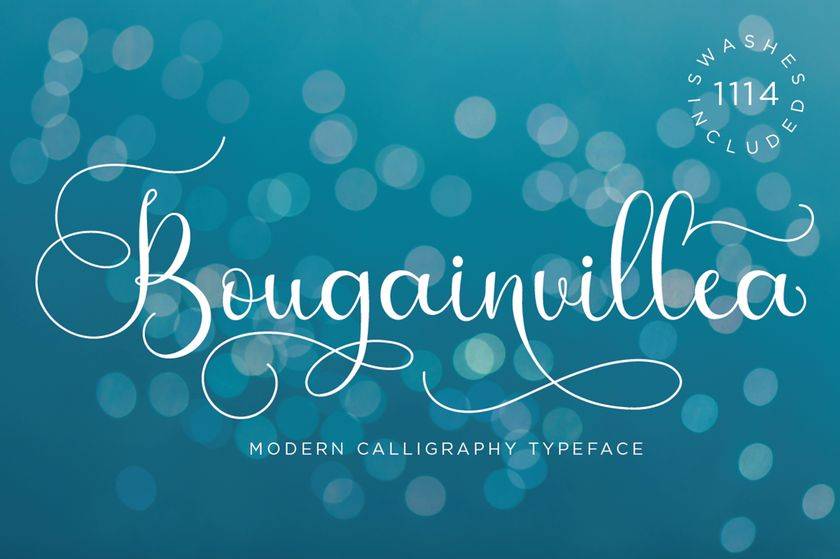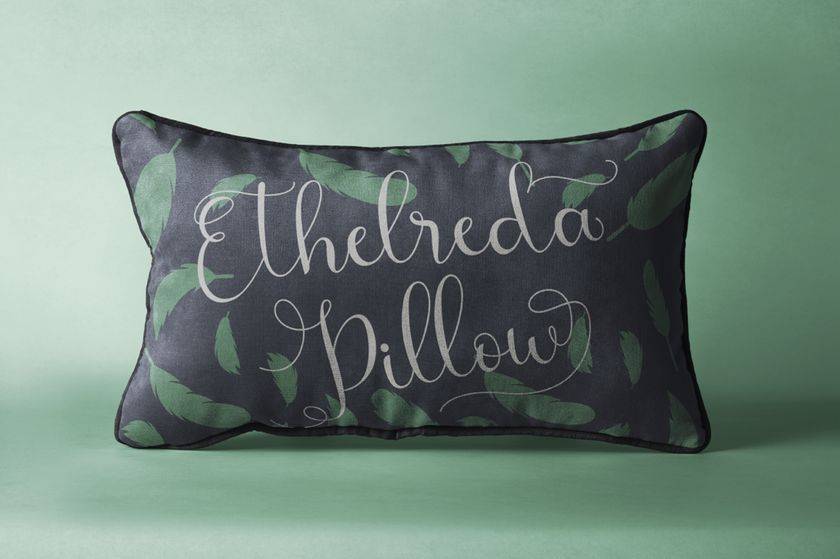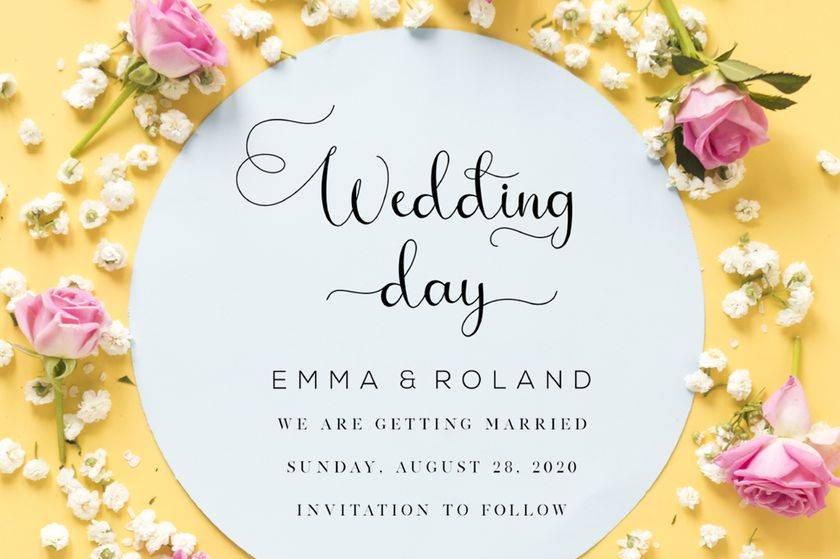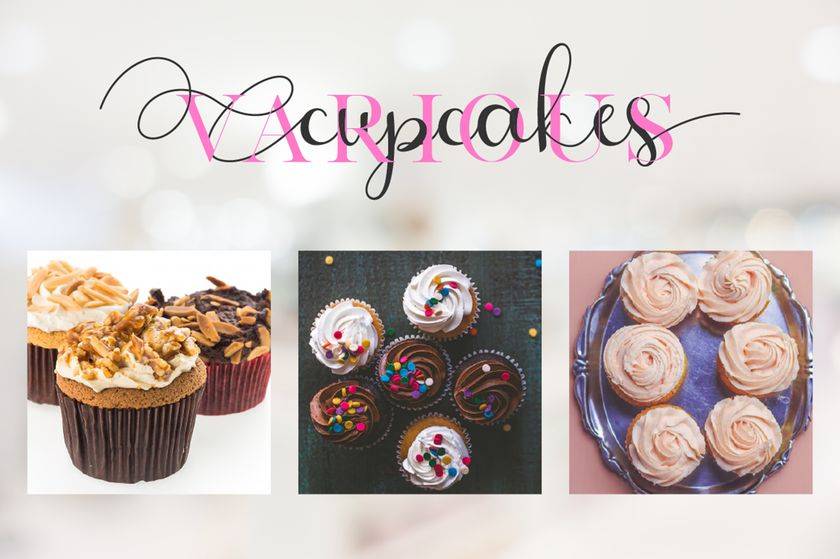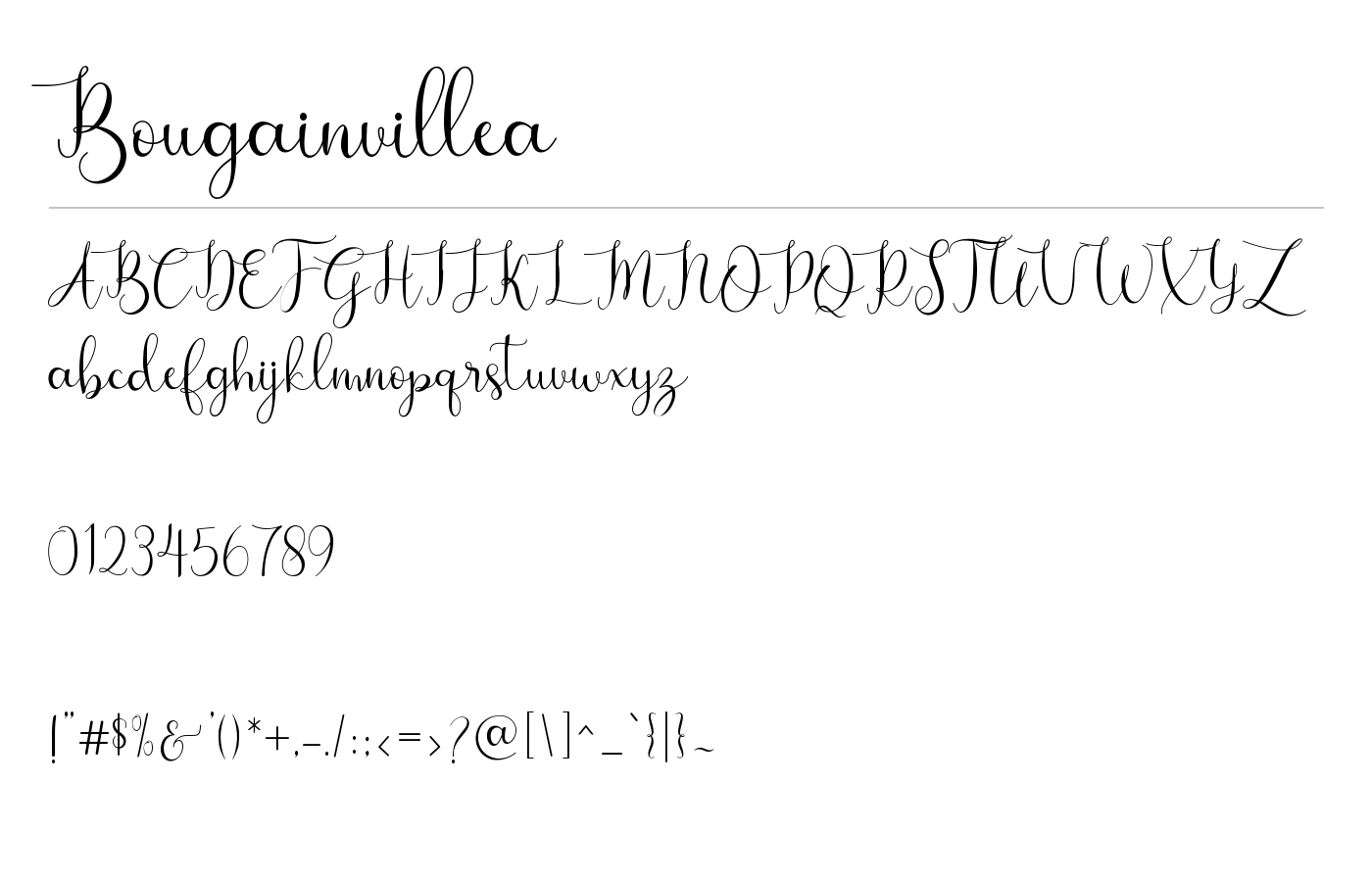
Bougainvillea is a graceful script font featuring elegant, flowing lines and delicate, thin strokes that give it a light and airy feel. Its charming, calligraphic style with unique swashes and loops makes it ideal for luxury branding, wedding invitations, and feminine designs seeking a sophisticated and romantic touch. This font works beautifully in headlines and decorative uses where a refined, artistic look is desired.
Bougainvillea Font
About Bougainvillea Font